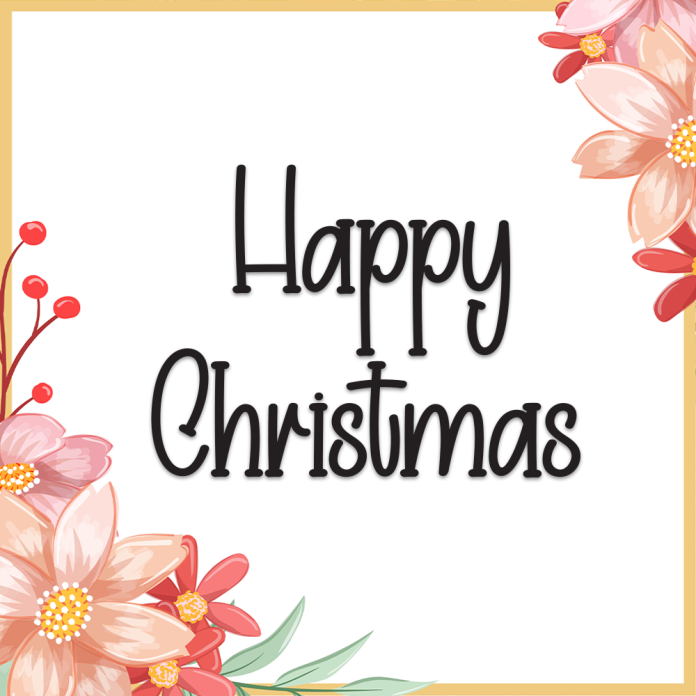
Happy Christmas is a festive and joyful display font that captures the warmth and excitement of the holiday season. Its bold and playful letterforms make every design feel merry and bright.
Festive display style perfect for holiday themes
Ideal for Christmas cards, posters, and seasonal branding
Bold and eye-catching letter shapes